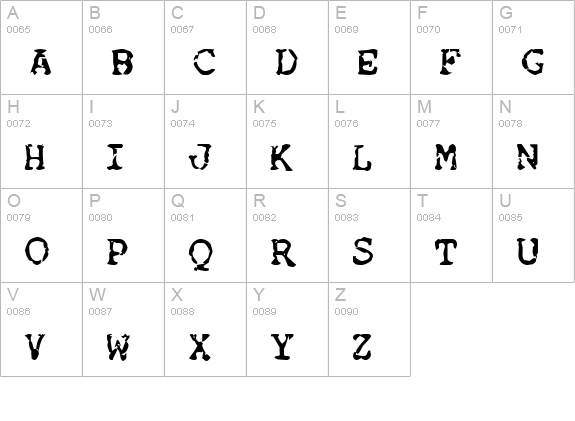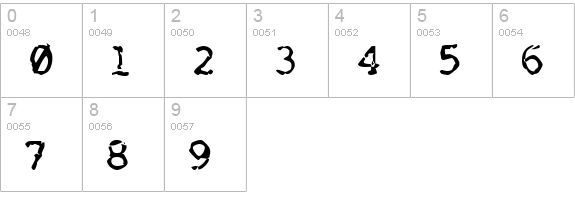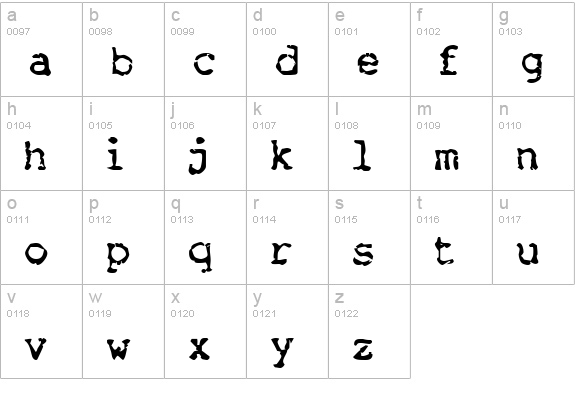
Nose Bleed Font Details
Introducing Nose Bleed font, a bold and edgy typeface designed to make a statement. With its sharp angles and unique letterforms, Nose Bleed font is perfect for projects that require a touch of attitude and modern flair. Whether you're designing a poster, logo, or social media graphic, this font will certainly make your text stand out. The best part? Nose Bleed font is available for free download at FontsMarket.com. So go ahead and enhance your designs with this eye-catching font without breaking the bank. Add a touch of boldness to your projects with Nose Bleed font today!